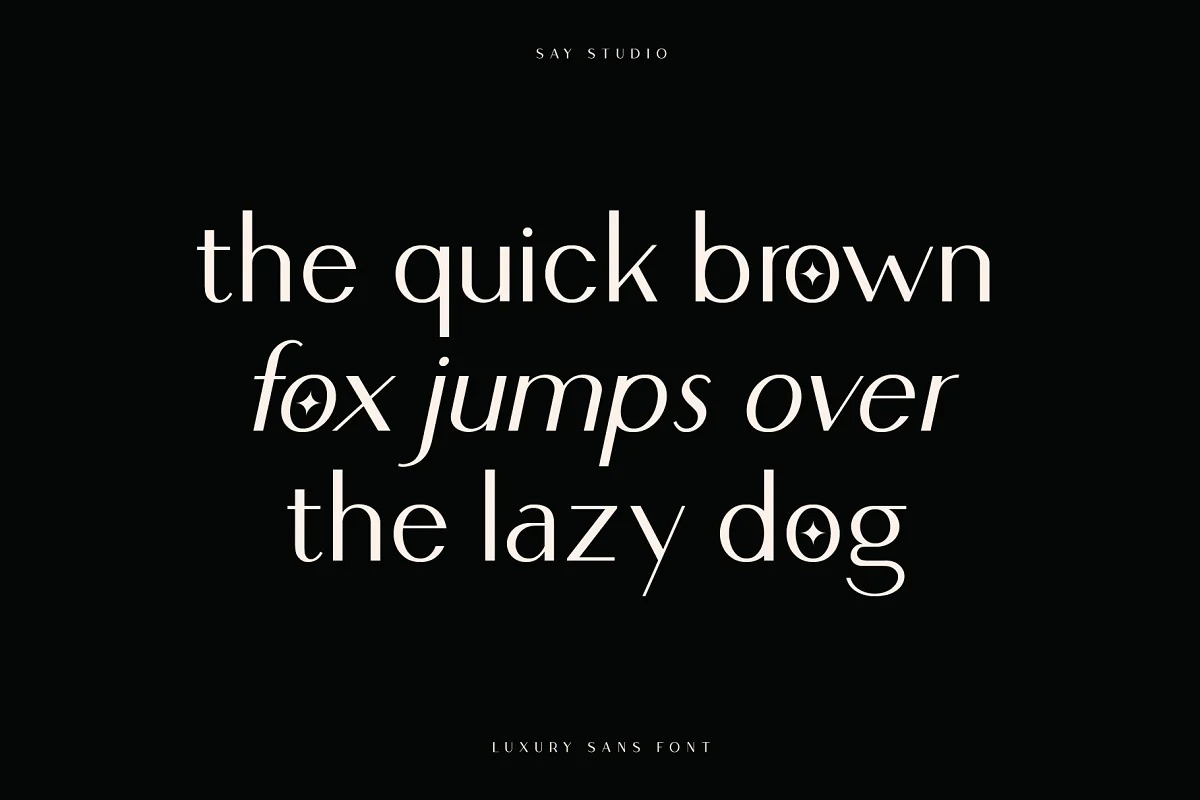
Loving Ambros Font
Loving Ambros Sans Serif Font
This font is designed by combining an elegant script typeface with a simple and charming serif font style. Come with 2 versions regular & italic.
Loving Ambros is made mainly for headlines, titles, and other short texts and is well-suited for advertising, vintage mood board, branding, logotypes, packaging, titles, editorial design, modern logos, websites, social media quotes, wedding branding, modern and vintage design. These a fonts are perfect for designs with the concept of elegant, luxury, romance, fashion and so on.